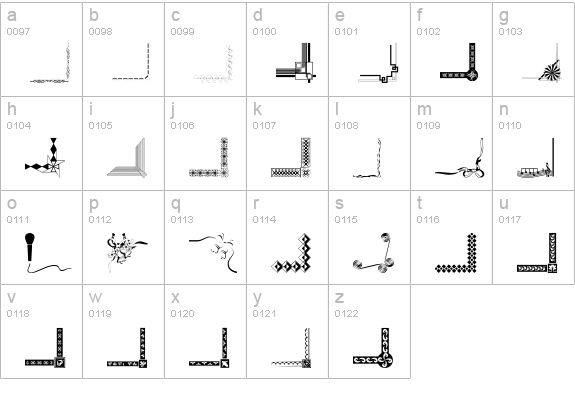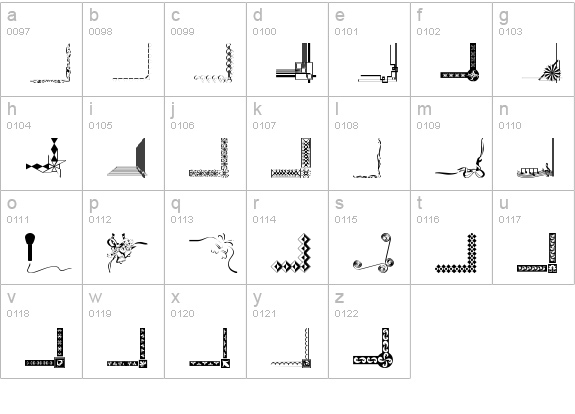
Border Corners Font Details
Border Corners font is a charming and versatile typeface that adds a touch of elegance and uniqueness to any design project. With its intricate and decorative corners, this font is perfect for creating eye-catching headlines, invitations, posters, and more. The detailed design of each character in Border Corners font makes it stand out from the crowd and gives your text a distinctive look. What's even better is that Border Corners font is available for free download at FontsMarket.com. You can easily access this beautiful font and use it in your personal and commercial projects without any restrictions. So go ahead and enhance your designs with the stylish and creative flair of Border Corners font today!